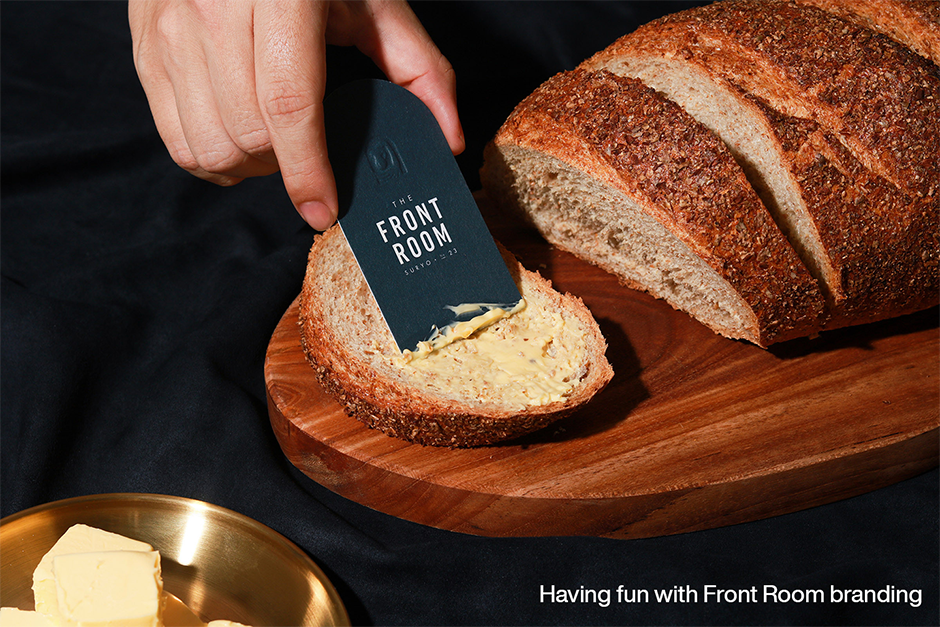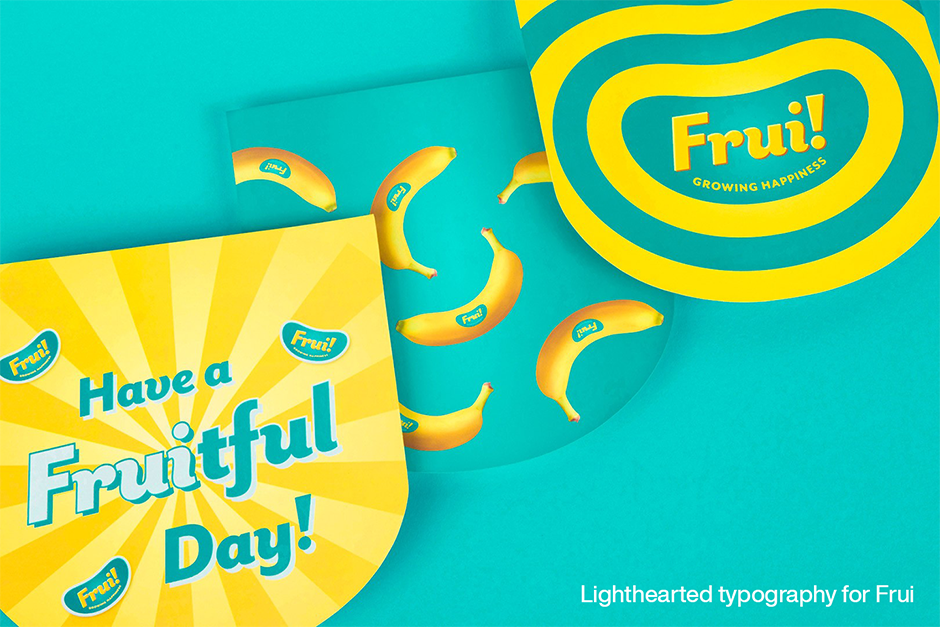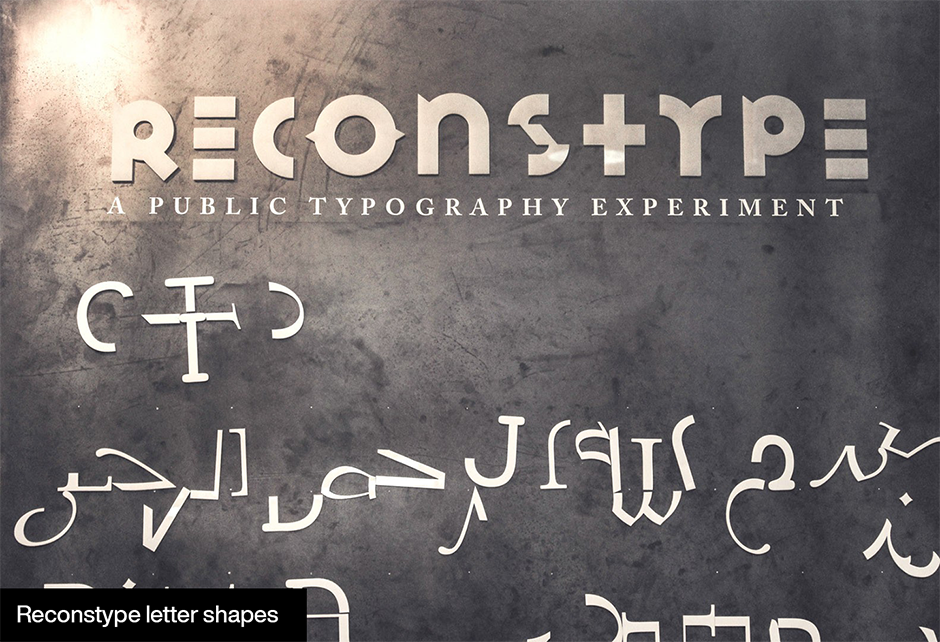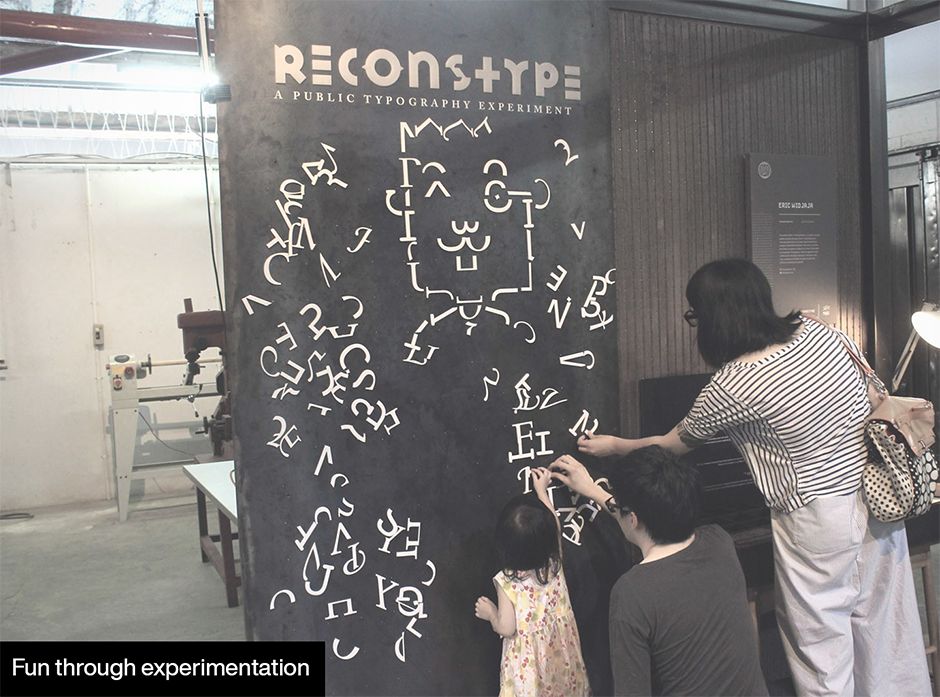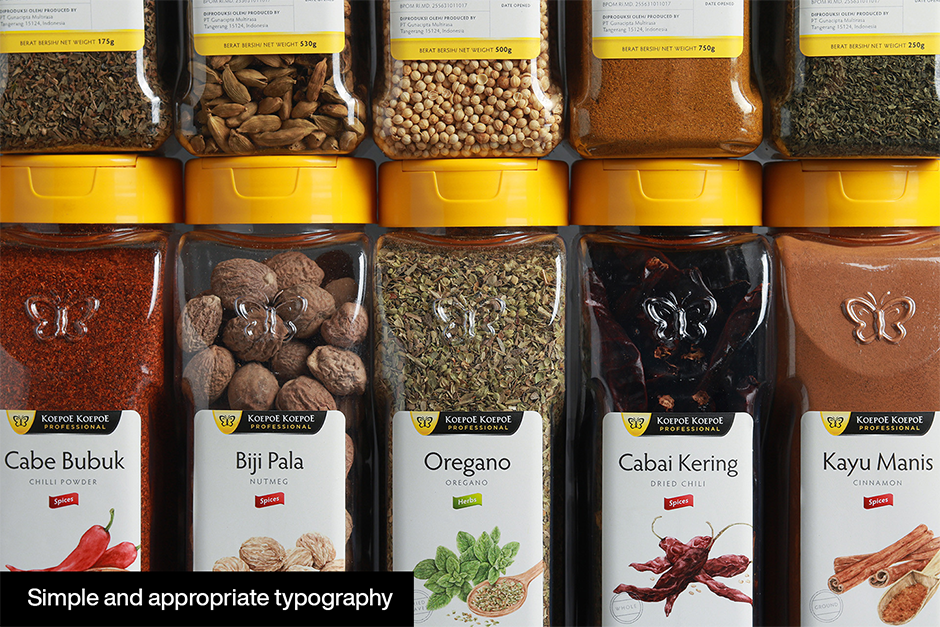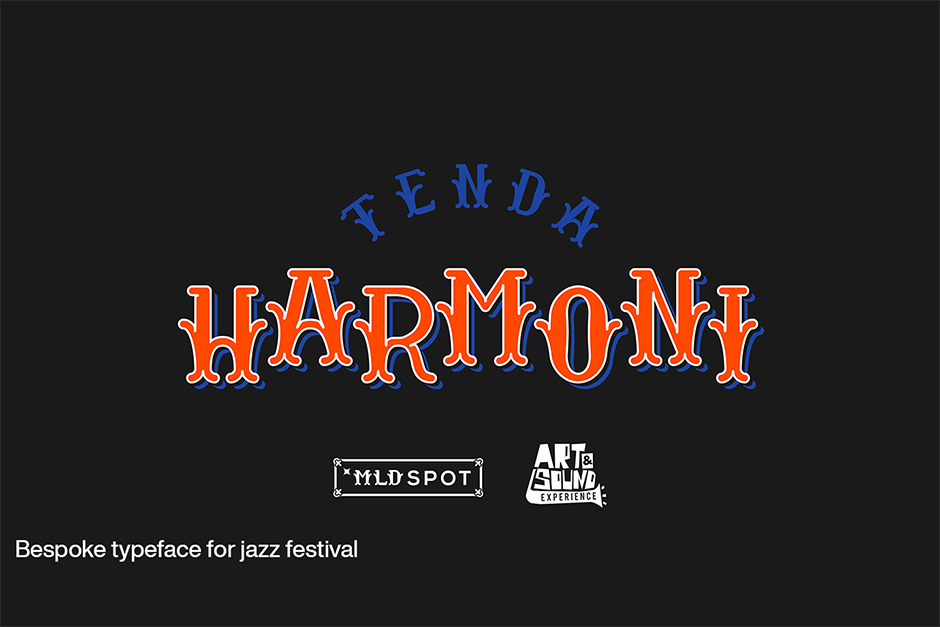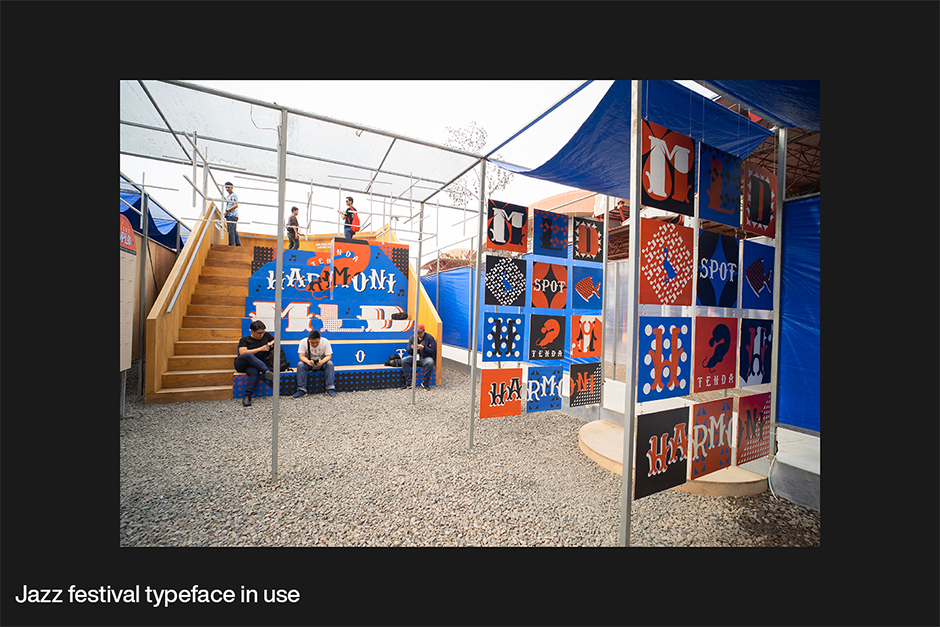
Type Trends: 2021 Q2 Trends by Eric Widjaja at Thinking*Room.
When design can speak for itself without explanation, it has stopping power.
Eric Widjaja, Founder and Design Principal at Thinking*Room Inc.
If you’re reading this, you’re probably a font browser. When you’ve got a project that calls for something fresh and new, you browse the pages of MyFonts looking for that special typeface. You’ll sift through the hundreds of banners until you find exactly what you need. You probably, however, don’t take notice of the foundries that create the fonts – or where they’re located.
If you do, you might have discovered that Indonesia has become the source of some exceptional typeface designs. Recently, Indonesian type designers have released a tsunami of vibrant and original Latin typefaces. Ahmad Jamaludin, Alcode, Balibilly Design, BaronWNM, DYSA Studio, Edignwn Type, XdCreative, TOKOTYPE are just a few of the Indonesian type foundries with exciting new designs represented on MyFonts. A site search will reveal dozens more.
At Thinking*Room, we try to add a bit of a refreshment to all our work.
Eric Widjaja
About Eric Widjaja and Thinking*Room
With so many terrific fonts coming out of Indonesia, we thought it would be fun to reach out to an Indonesia design studio and ask if there are any trends in the use of fonts – Indonesia and otherwise.
This is where Thinking*Room Inc. comes in. It’s been setting design trends in Jakarta since 2005. Thinking*Room is inspired by the limitless potential of an idea. Known for pushing the limits, it has earned the trust of its clients to provide total design and concept solutions. The studio concentrates on branding, concept development, logo design, typography, environmental design, publishing, packaging, way-finding and website design.
Eric Widjaja is the founder and Design Principal at Thinking*Room. And, although he began his education seeking a degree in engineering, music and the arts soon lured him away. After graduating from Academy of Art University in San Francisco, Eric did a stint at Landor Associates where he worked with designers to create brand identity, print, packaging, and multimedia solutions for clients, the likes of, Levi’s, GE, and Xerox. After a number of design positions in San Francisco, he returned home to Jakarta in 2003, and founded Thinking*Room two years later.
What’s New and What’s Important
When we asked Eric about type and typographic trends, he told us about two noteworthy trends – and shared some sage typographic advice. He listed the growing importance of custom fonts and creating typographic surprises as important trends. Eric’s typographic consul was to embrace limitations, ensure that solutions – especially if they are following trends - are appropriate and that, while standing out is important, functionality is more so.
Bespoke Fonts
“I see more and more bespoke and customized typefaces crafted exclusively for clients,” says Eric. “Companies have realized that typefaces can be one of the most important parts of the brand. Having a bespoke design, they’re able to establish their brand persona simply and effectively. Voice is one of the most important roles in brand design — and the most common mediator of the brand’s voice is type.” An example of the branding power of bespoke typefaces is the design Thinking*Room created for a project brought by MLDSpot and Art&Sound Experience at Java Jazz Festival 2020, based on local food truck lettering.
Creating Surprises
“Typography is a very powerful tool to express emotion,” explains Eric. “When design can speak for itself without explanation, it has stopping power. That’s where design succeeds most effectively. At Thinking*Room, we like to surprise the audience and have fun with type,” he continues. “The design we did for the Front Room and Frui projects is typical of our having a bit of fun with our work.”
Embrace Limitations
“Limitations can have a huge effect on successful design,” Eric continues. “When given limitations, creativity tends to be more ignited than when given total freedom. One of the more effective ways is working with a limited number of typefaces in a project. In doing so, you get these chances to explore and experiment with fonts – and the results can be exciting.” Typical of limiting its self, Thinking*Room was invited by Indoestri, an Indonesian Makerspace to showcase its work. Rather than do that, it created a typographic installation whereby the public could have fun creating new visual images.
Appropriate Solutions
“I was heavily influenced by typography in design school,” says Eric. “The work of Emigre and David Carson had a huge effect on my work – sometimes too much. I was asked to design a wedding invitation for my cousin, when I was in college. It ended up looking like a spread from Ray Gun magazine. Unfortunately, my cousin wasn’t a fan of David Carson, and decided to find someone else to design the invitation.”